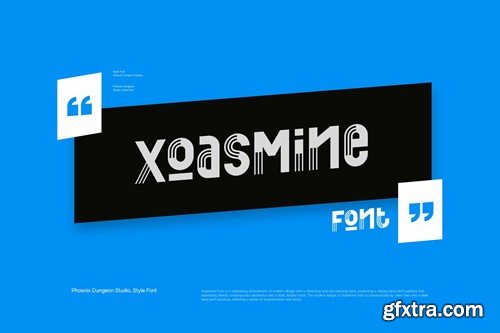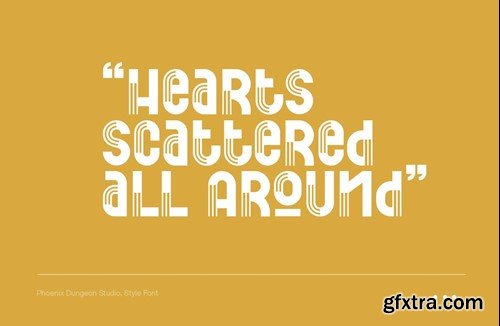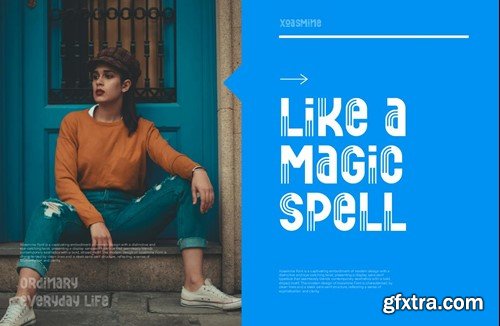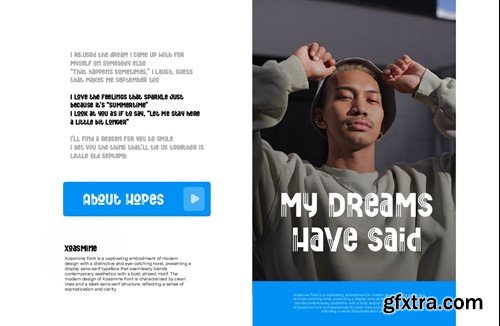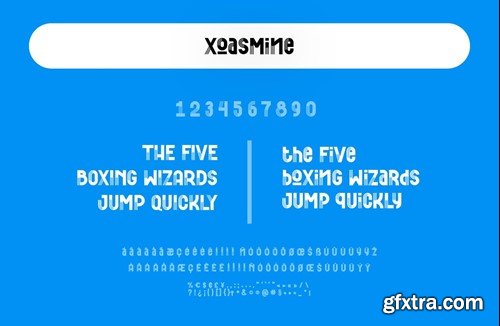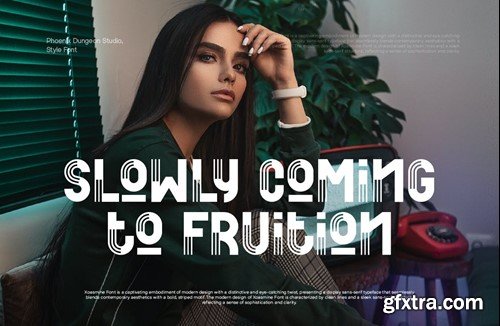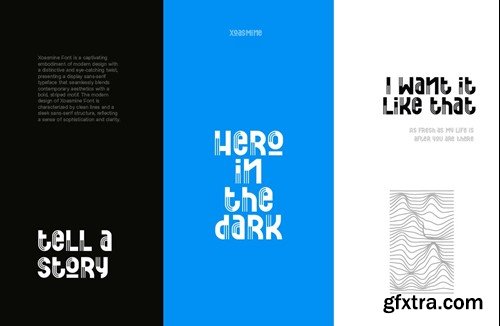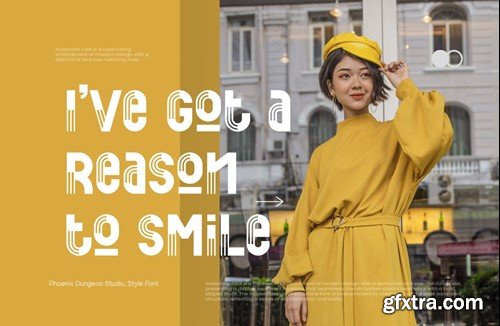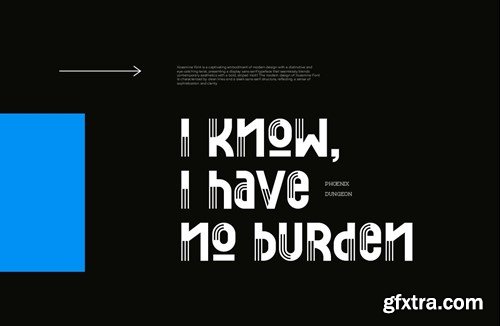
Xoasmine Font
Xoasmine Font is a captivating embodiment of modern design with a distinctive and eye-catching twist, presenting a display sans-serif typeface that seamlessly blends contemporary aesthetics with a bold, striped motif. The modern design of Xoasmine Font is characterized by clean lines and a sleek sans-serif structure, reflecting a sense of sophistication and clarity. What’s in the package : Thank you